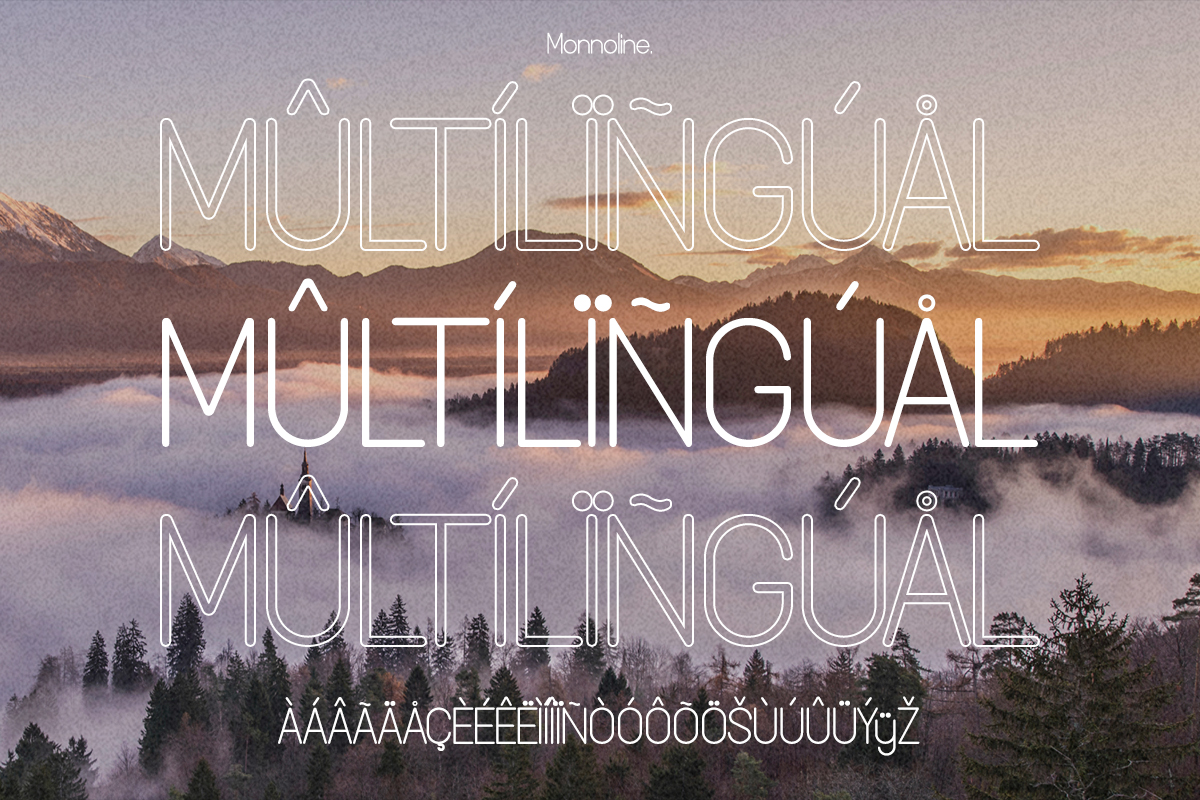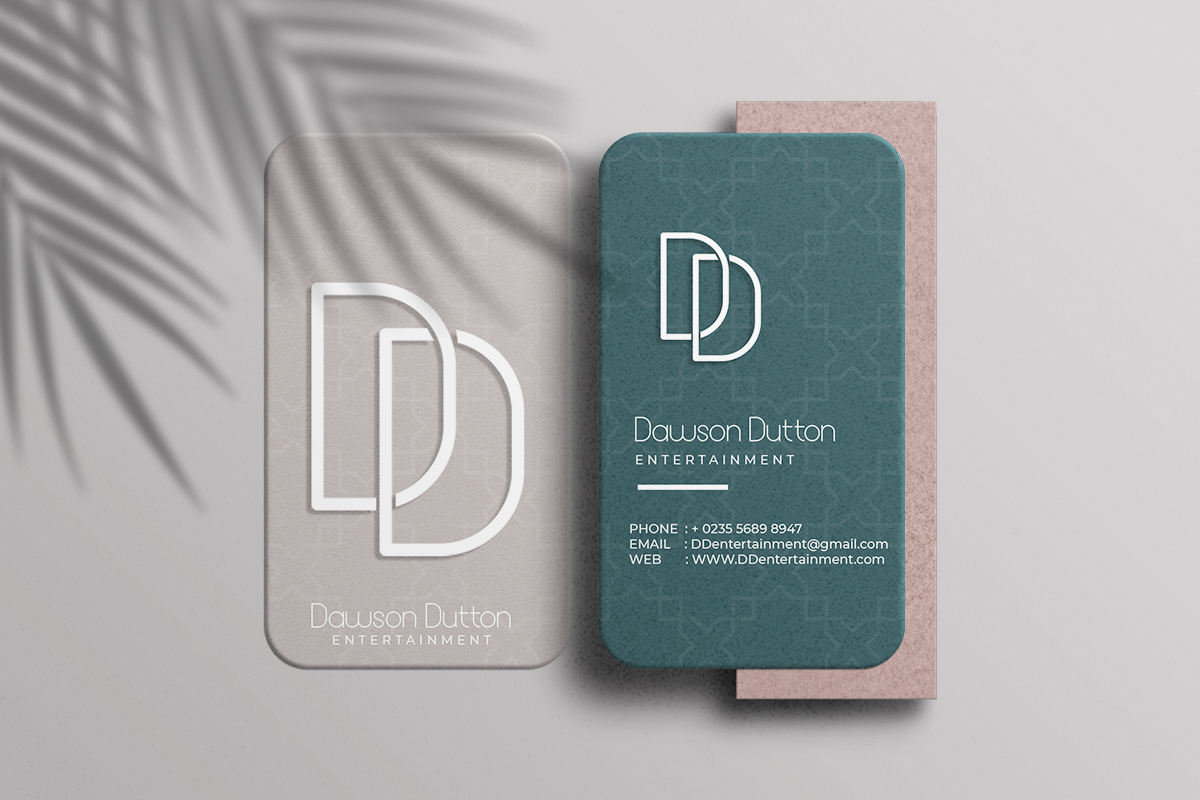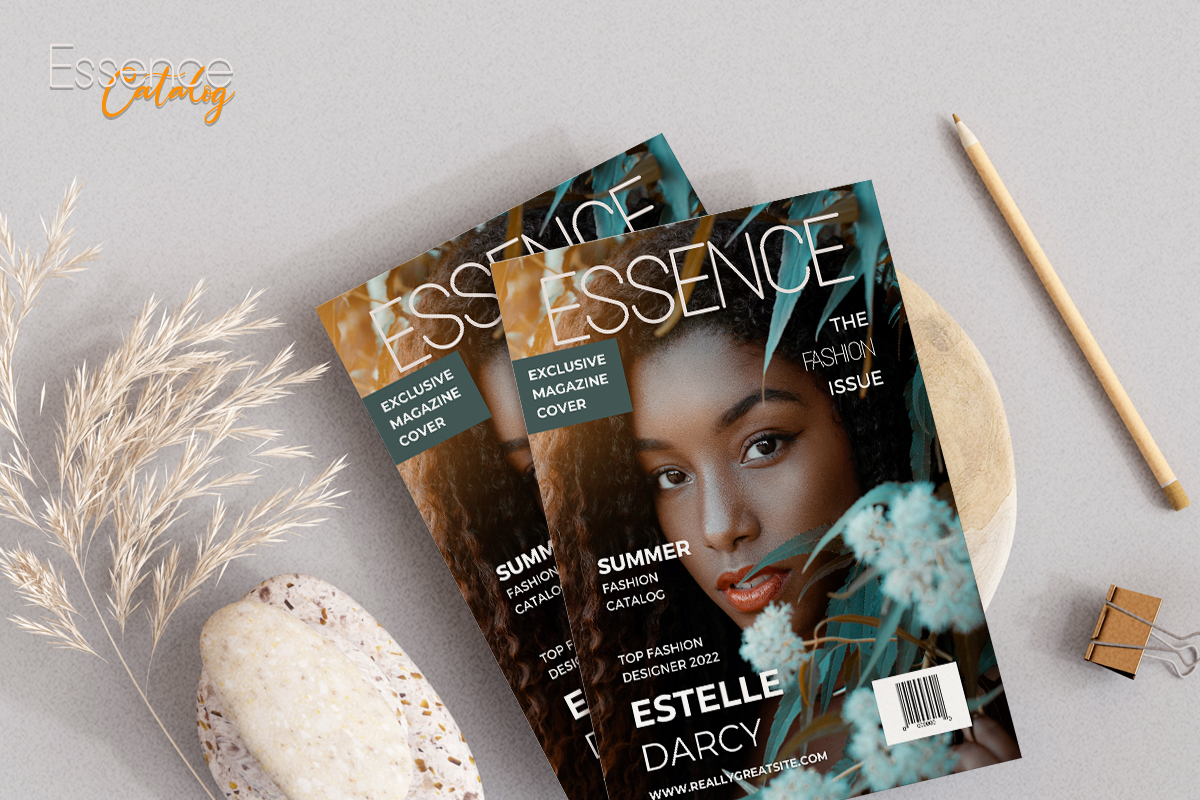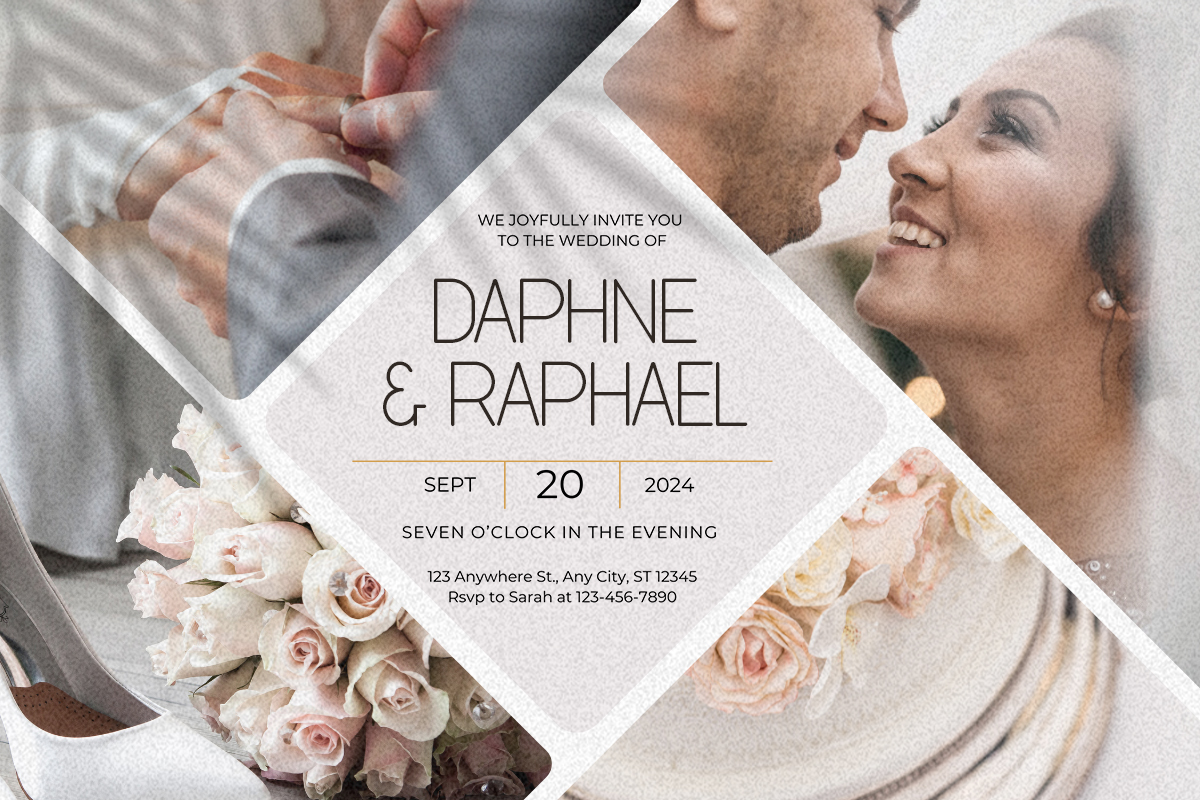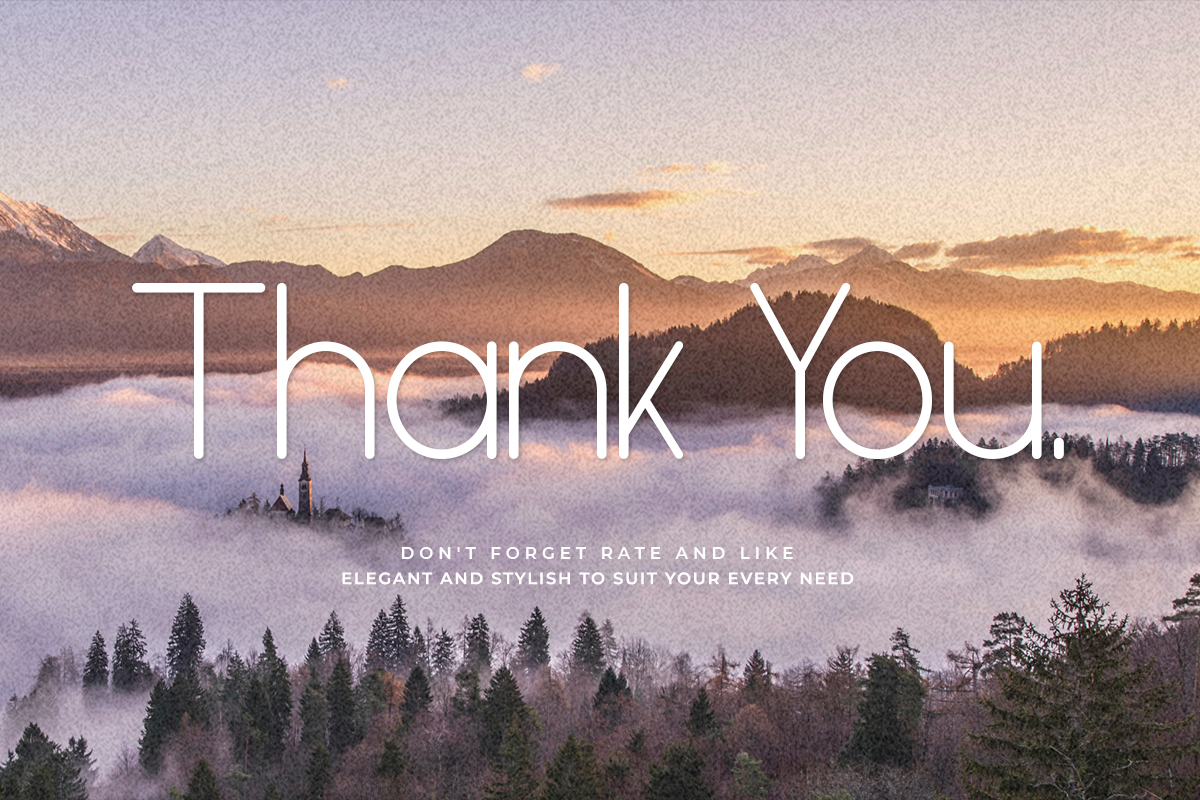
Monnoline Classy Monoline Font is a new creation that comes with an attractive style and is formed with a thick classic font feel. This font is one of those fonts that give you options for people who are interested in using a sans serif font. Monnoline font has the characteristic that there are no additional letters in it. It is a legible font that is easy to distinguish every letter. This font is visible when printed in small or large font sizes. Monnoline Classy Monoline Font is the best font to use in many ways. This font can be a wedding font. The Monnoline font will look simple and elegant when combined with several wedding supplies such as invitations, posters, and souvenirs. Monnoline Classy font can be used for print magazine covers and online magazines. Monnoline Classy Font Monnoline beside part of a sans serif font, which can be called an aesthetic font and a modern font. Its various can be as digital fonts and print fonts. The desired impression of this font must be completed by other themes and ornaments that accompany it. Also, it must be used in the right font size. Our Sans Serif fonts collection is compatible for use as Figma fonts, Canva fonts, Freepik Fonts, and Adobe Fonts. They also work as Windows Fonts, and Apple Fonts. For your social media needs, you can use and install fonts in our Sans Serif font collection to use as Instagram Fonts, Facebook Fonts, and Twitter Fonts.